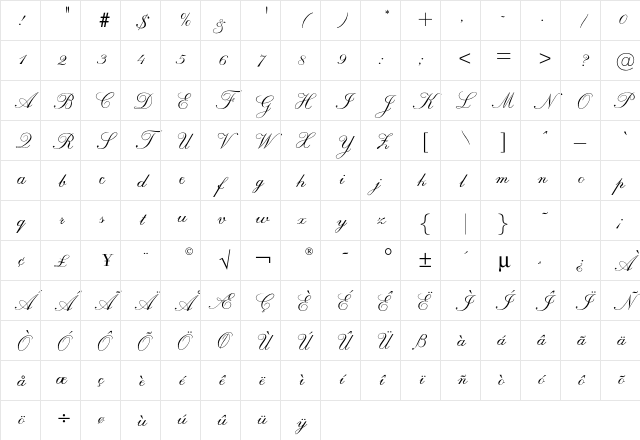
RespighiOpti Script
Style: Script
Design Context for RespighiOpti
RespighiOpti flows with the natural rhythm of handwritten lettering, making it ideal for designs that call for warmth and personal expression.
Font Pairing: Combine RespighiOpti with a simple geometric sans for maximum contrast - the tension between flowing curves and clean structure is a classic typographic pairing.
Pro Tip: Use RespighiOpti for short runs of text - names, titles, or taglines. Extended body copy in script faces tires the eye quickly.